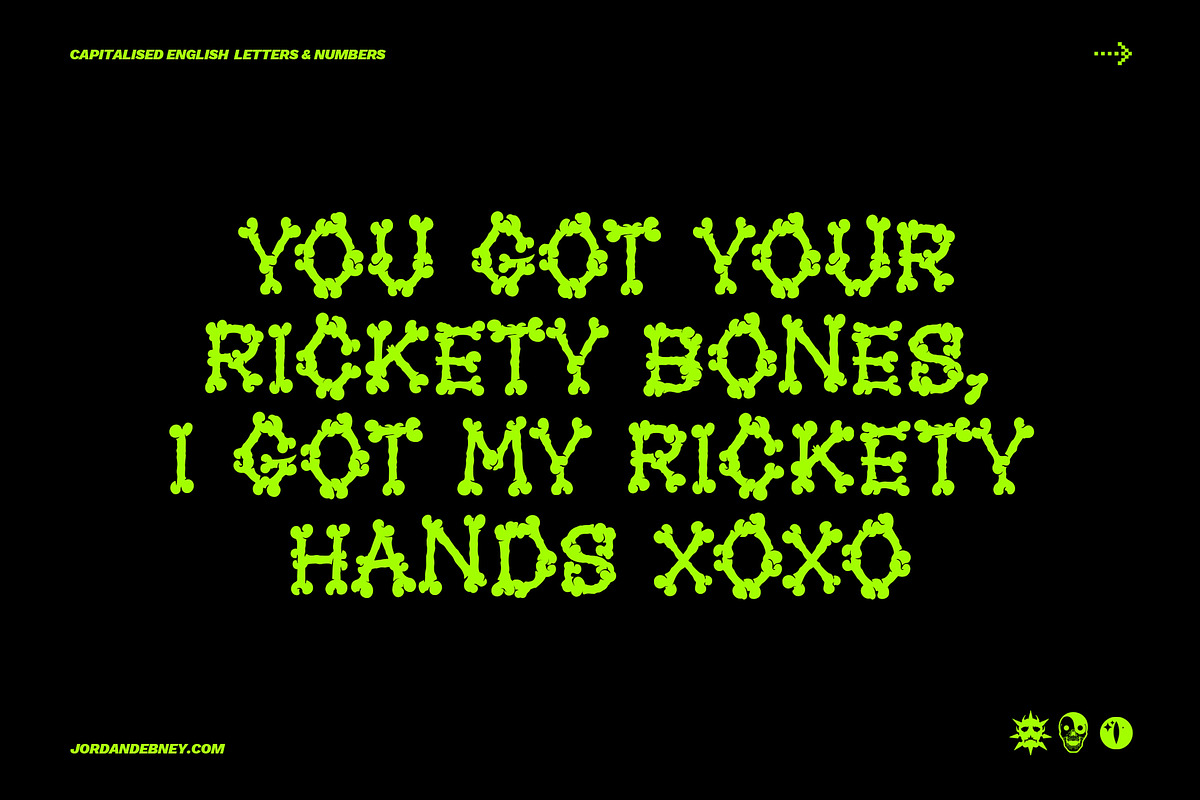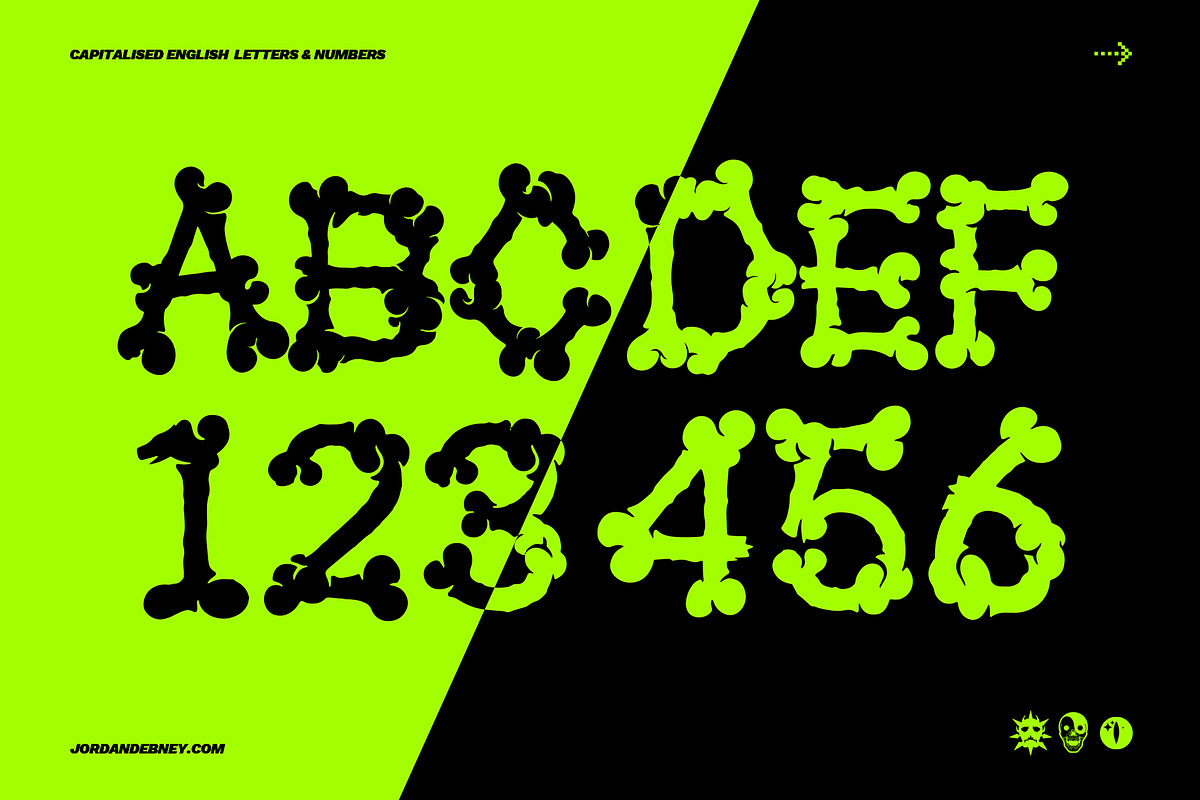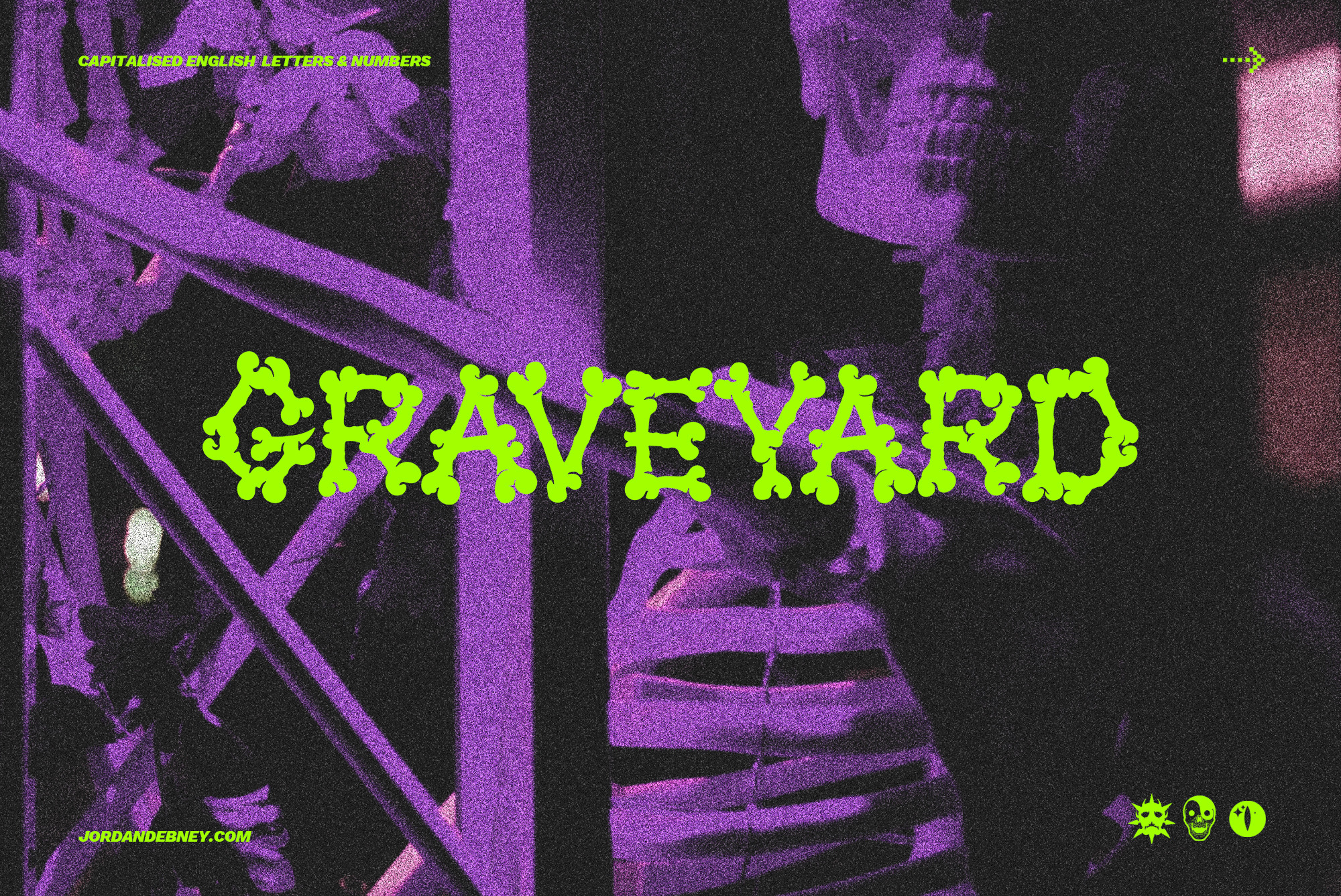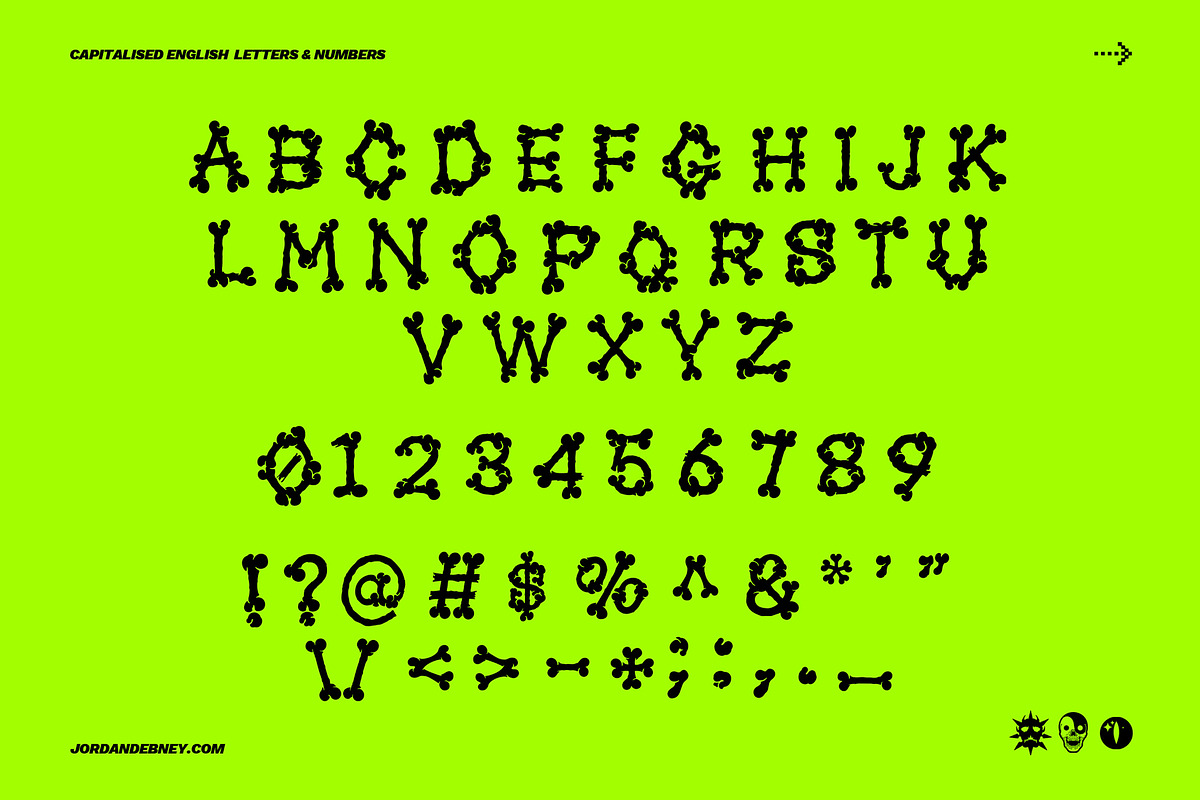
GRAVEYARD Font
'GRAVEYARD' IS THE BONE TYPEFACE TO CONQUER THE REST, THERE'S ALOT OF CHEAP NASTY "BONE" FONTS OUT THERE BUT THIS ONE IS ALL YOU'LL NEED, A HEADLINE TYPEFACE DESIGNED FOR STREET-WEAR, GIG POSTERS OR GENERALLY ANYTHING YOU'LL EVER NEED A BONE TYPEFACE FOR.
◆ HAND-DRAWN AUTHENTIC BONE GLYPHS. ◆ INCL. CAPITALISED ENGLISH LETTERS AND NUMBERS. ◆ NO SIGN-UP NEEDED TO PURCHASE.